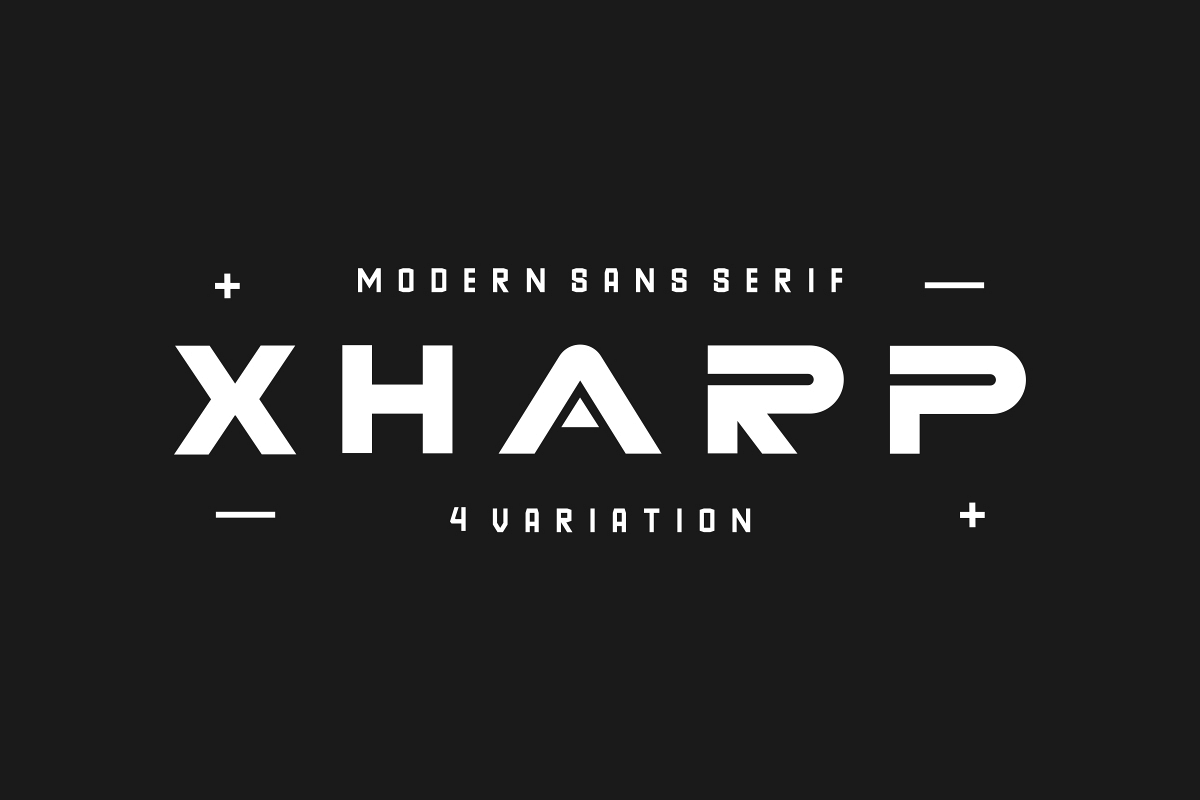
XHARP
XHARP Futuristic Modern Font Hi Everyone! Introducing our newest font : XHARP . It has FOUR styles : Regular, 3D, Gradient and Laser.This is a new modern Futuristic font, a family of Sans Serif Typefaces. It will be Great for branding, logo, stationery, business card, signage, flyer, brochure etc. There are many industries that is suitable for this font : technology, creative, studio, media, marketing etcThis font will Work on PC & Mac with Simple installations. Accessible in the Adobe Illustrator, Adobe Photoshop, Adobe InDesign, even work on Microsoft Word. It’s also PUA Encoded Characters – Fully accessible without additional design software.Grab it fast!